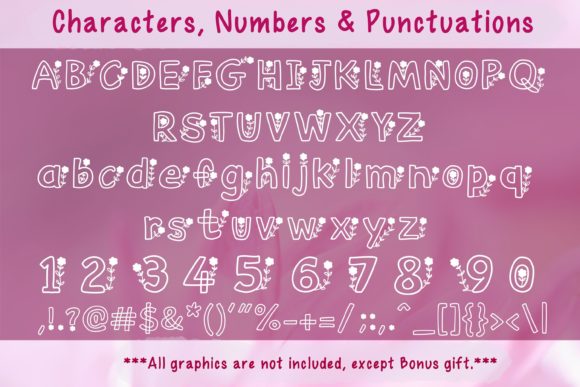
Introduction to Floralist Font Font
Fonts play a crucial role in design, and the Floralist Font font is a typeface that brings both character and versatility to any project. Whether you’re working on a branding project, a website, or a print design, the Floralist Font font offers a unique style that can elevate your work.
Floralist is a beautiful and dainty decorative font, featuring frail little flowers.
Featuring characters that dance along the baseline, this font will add a luxury spark to any design project that you wish to create .
Key Features of Floralist Font Font
Why Choose Floralist Font Font?
The Floralist Font font is more than just a typeface – it’s a design tool that helps you communicate your message with style and clarity. Its unique character set and versatile design make it suitable for a wide range of applications, from elegant invitations to bold headlines.
With its carefully crafted letterforms and balanced proportions, the Floralist Font font ensures readability and visual appeal across all mediums.
What makes Floralist Font font special?
The Floralist Font font stands out with its unique design, exceptional readability, and versatility across various design applications.